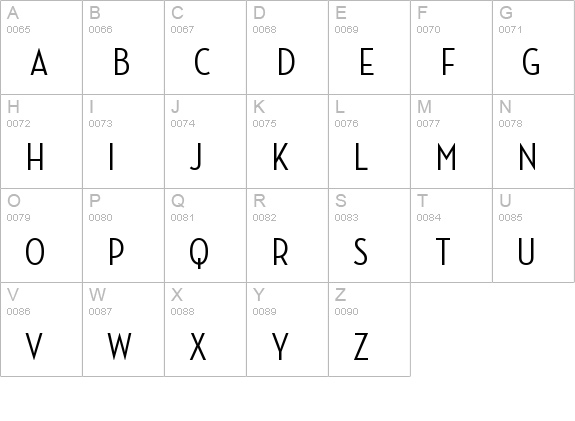
NeutrafaceCondensedPS-Medium is a balanced, medium-weight variant in the NeutrafaceCondensedPS typeface family \xE2\x80\x94 well suited to sub-headlines, navigation, and balanced editorial work.
NeutrafaceCondensedPS-Medium is a sleek and modern font that exudes sophistication and elegance. Its condensed style makes it perfect for creating impactful headlines, logos, and other design projects where space is limited. The clean lines and geometric shapes of this font give it a timeless appeal that is both contemporary and classic. What's even better is that NeutrafaceCondensedPS-Medium is available for free download at FontsMarket.com. This means that you can easily access this stylish font without any cost, making it a valuable addition to your font collection. Whether you're a designer looking to add a touch of refinement to your projects or a business seeking a polished look for your branding, NeutrafaceCondensedPS-Medium is the perfect choice. Download it today and elevate your designs with this exquisite typeface.